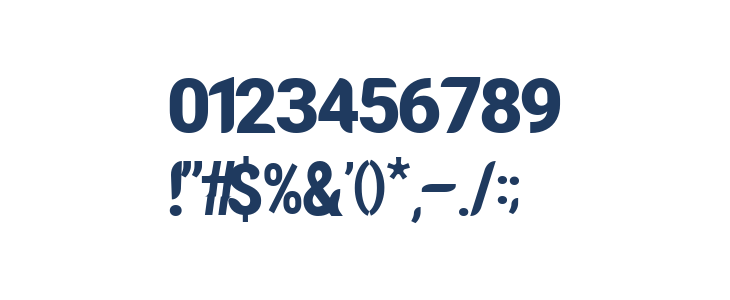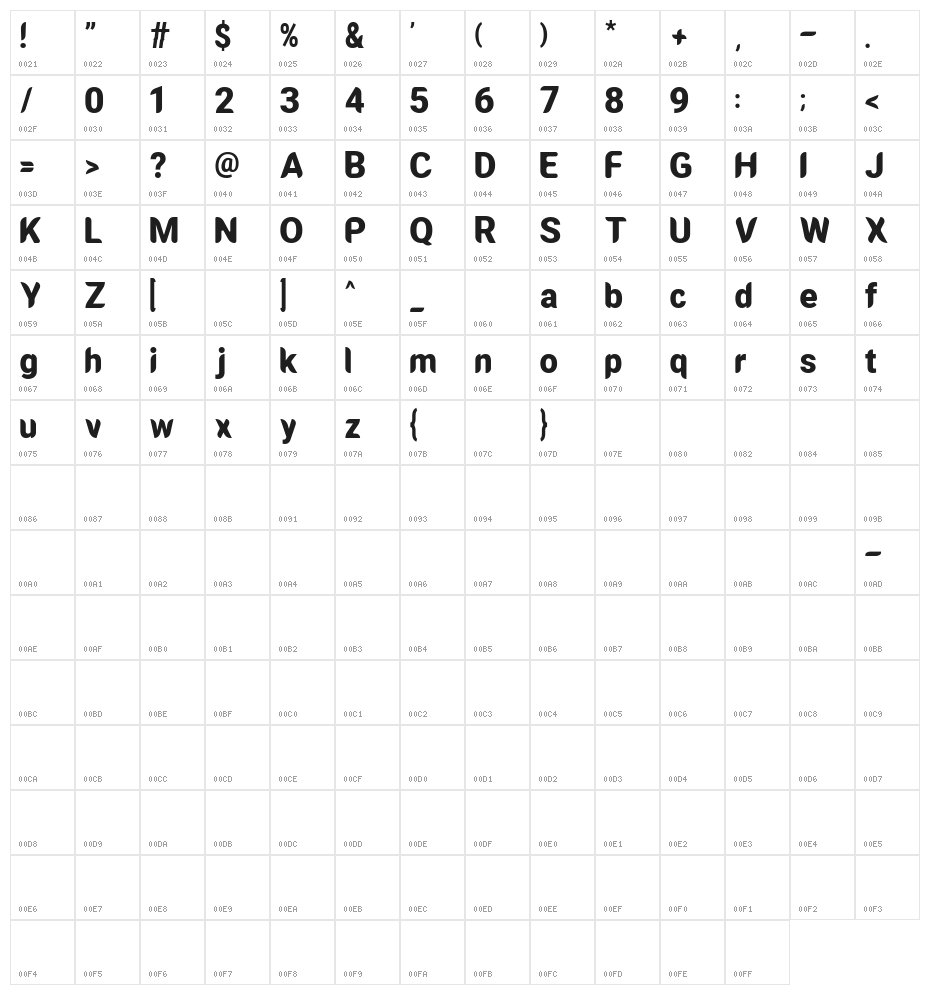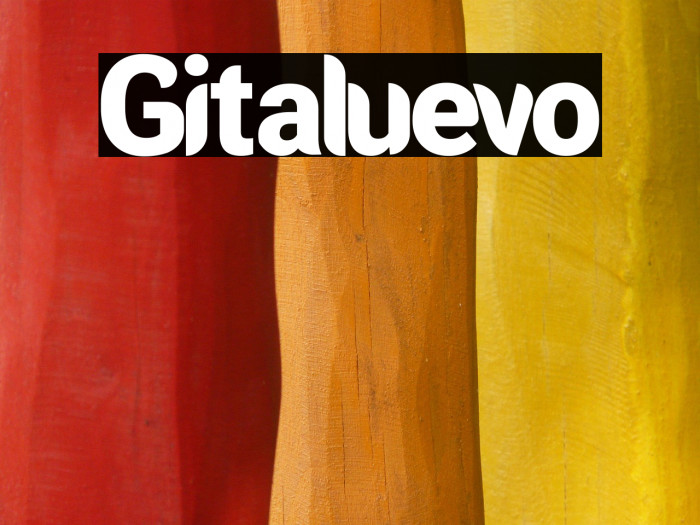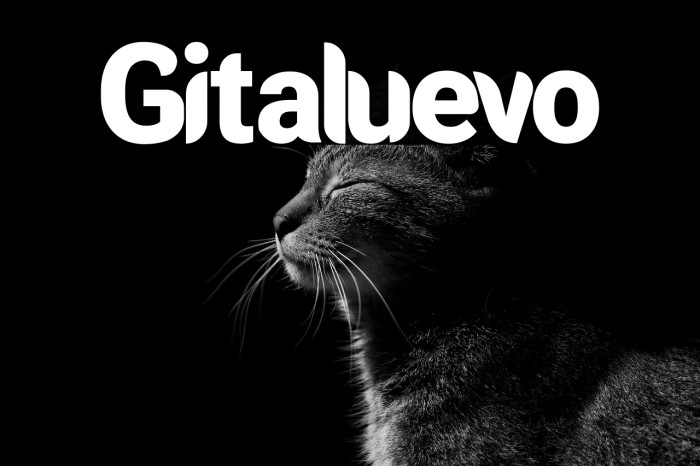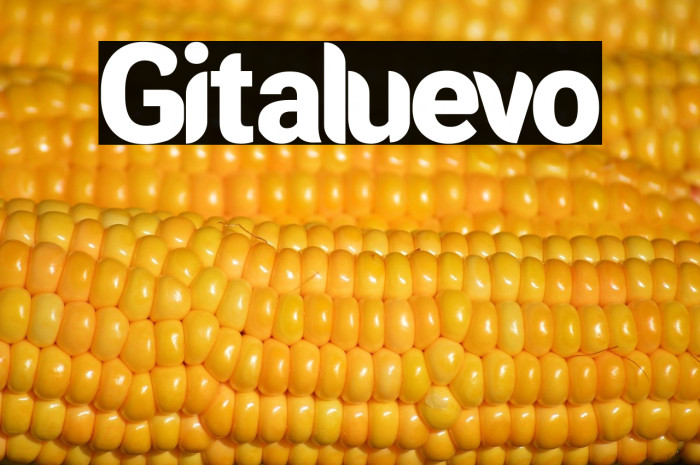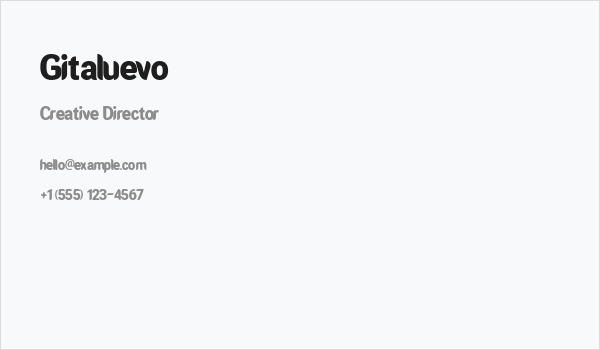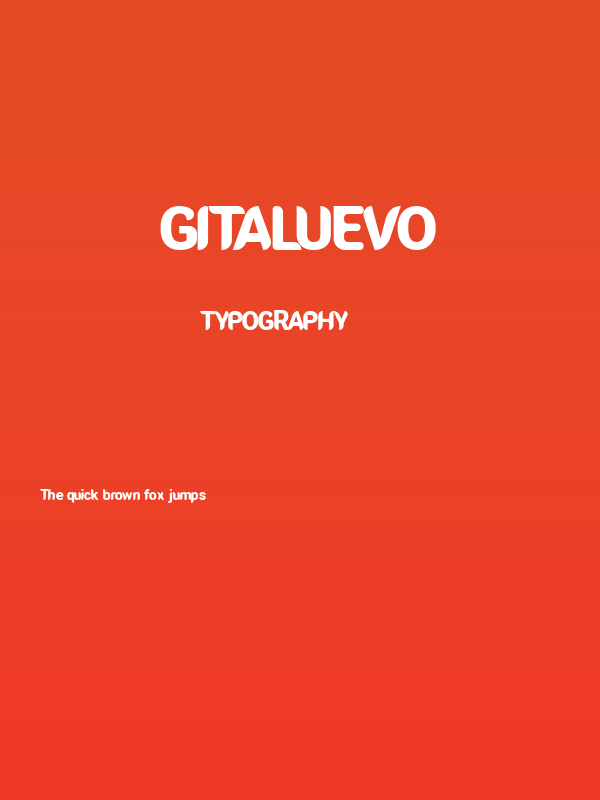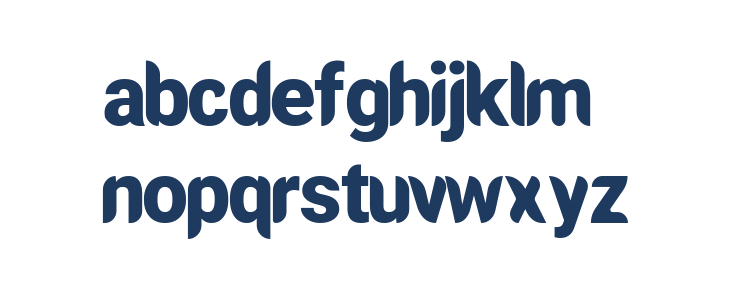
Gitaluevo Font
Gitaluevo Description
This font features bold, rounded characters with a modern and friendly appearance. The uppercase letters are robust and impactful, while the lowercase letters maintain a consistent roundness that complements the overall style. The numerals are clear and easily distinguishable, making them suitable for various applications. Special characters are designed with the same boldness, ensuring uniformity across all glyphs. The font's smooth curves and uniform stroke width contribute to its approachable and versatile nature, making it ideal for both digital and print media.
Use CaseHeadlines, Logos, Advertising
Proposed ProjectsIdeal for branding, advertising, packaging, and web design projects that require a bold and approachable look.